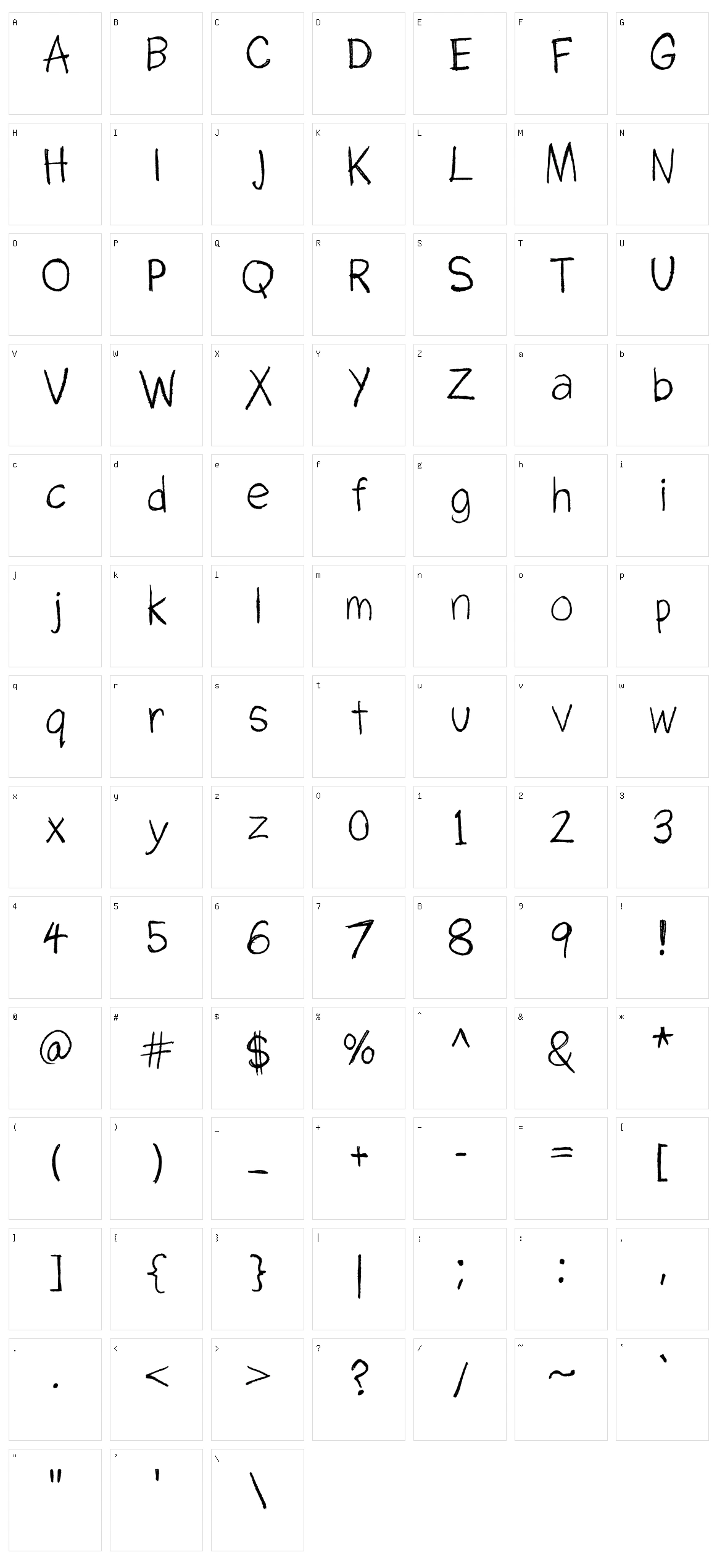
The free font Paf Standard is carefully designed by Simone Guggiari, showcasing a thoughtful balance of creativity and usability and falls under the Trash font style. When you download the ZIP file, it contains only 86.75 KB of font files, making it lightweight and quick to download. Please review the license details below to understand permitted usage and distribution rights. If license information is not available, we recommend using this font for personal projects only or contacting the author directly for commercial usage permissions.